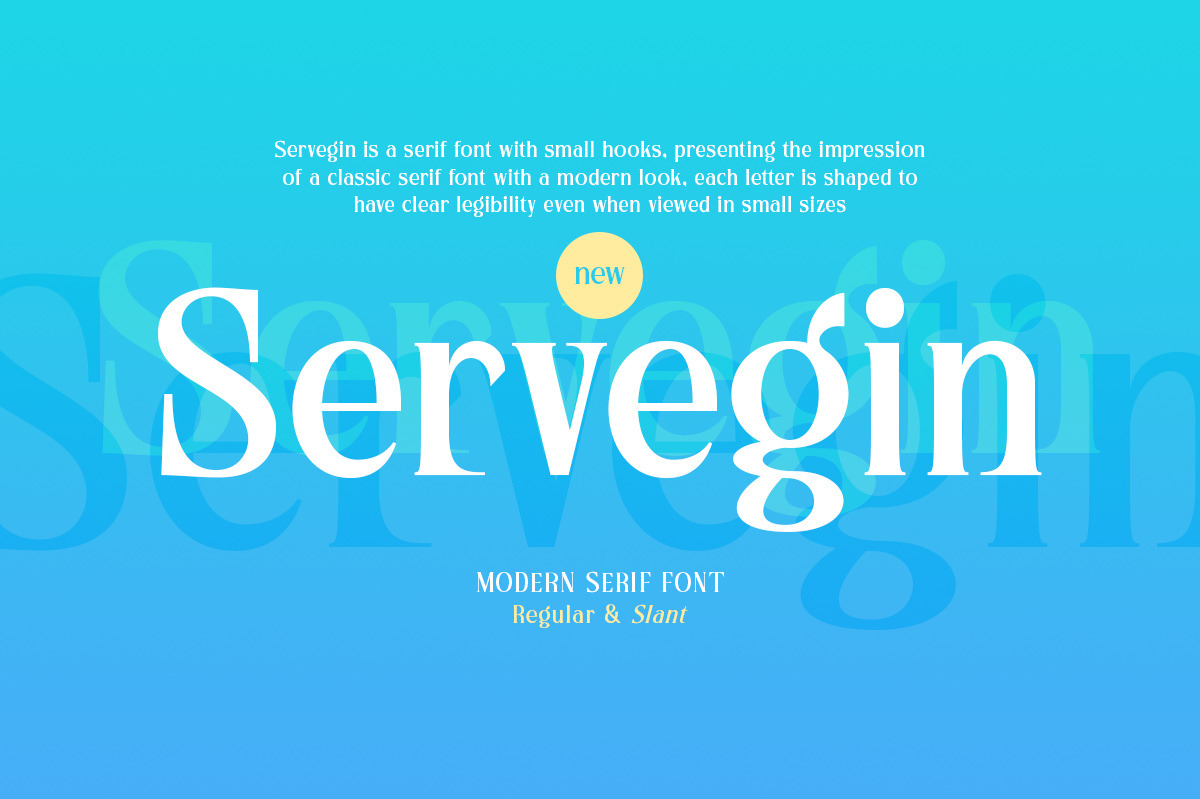
Servegin - Modern Serif Font
Servegin is a sophisticated modern serif font from. This typeface has can be used for modern theme or vintage looks. Very suitable for logo, headline, tittle, and the other various formal forms such as invitations, labels, logos, magazines, books, greeting / wedding cards, packaging, fashion, make up, stationery, novels, labels or any type of advertising purpose.
- uppercase and lowercase
- alternates